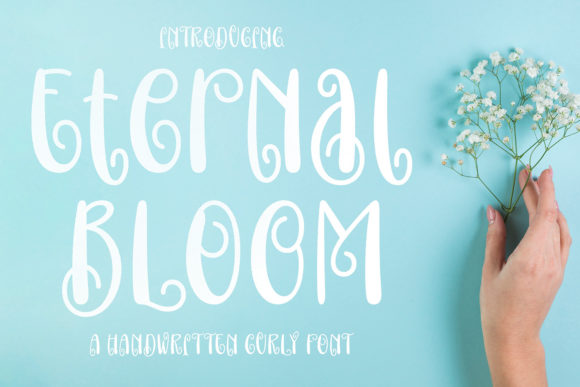
Calling all creative spirits and design enthusiasts! Introducing Eternal Bloom Font, the enchanting display font that will awaken your artistic soul. This playful and sophisticated font is the perfect canvas for your wildest creative expressions.
Crafted with meticulous care by the renowned font artist Rifki, Eternal Bloom exudes a unique blend of whimsy and elegance. Its charming curves and dynamic letterforms dance across the page, captivating your audience with their undeniable allure. Whether you're a seasoned designer or just starting your design journey, this versatile font has the power to elevate your projects to new heights.
Imagine the possibilities:
* Create stunning Easter-themed designs that will have your audience hopping with joy.
* Add a touch of whimsy to your digital creations, making them stand out from the ordinary.
* Elevate your presentations with a font that commands attention and conveys your message with style.
* Design heartfelt greeting cards that will warm the hearts of your loved ones.